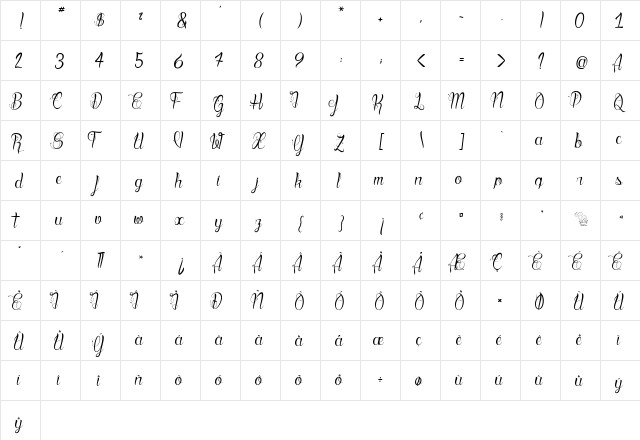
Blood Shade Regular
| Foundry | dcoxy Medina Gregory |
| Designer | dcoxy Medina Gregory |
Design Context for Blood Shade Typeface
Blood Shade leans into the macabre with letterforms designed to disturb and intrigue in equal measure.
Ideal for Halloween projects, horror film titles, haunted house signage, and dark editorial design.
Font Pairing: Pair with a clean neutral sans-serif for body copy to let Blood Shade's character lead without overwhelming the composition.
Pro Tip: Blood Shade works best as a headline or focal element. Pair it against plain, neutral body text to amplify the contrast.